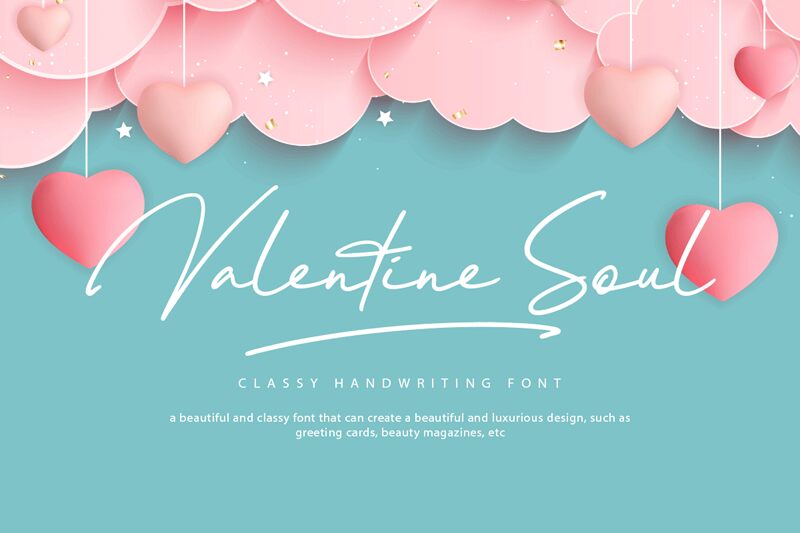
Valentine Soul
Valentine Soul, crafted by Kong Font, exudes the grace of handwritten artistry with its extra-light weight strokes that seem to dance across the page. Its delicate and flowing lines capture a personal touch that resonates with intimacy and affection. The aesthetic appeal of Valentine Soul lies in its ability to convey elegance and warmth, making it an exquisite choice for heartfelt invitations, romantic branding, or any project that desires a touch of human finesse.
The font's fluidity suggests versatility in its use, effortlessly fitting into various design landscapes—from upscale event announcements to boutique product labeling. With Valentine Soul, designers can invoke the subtle charm of handwritten correspondence in their digital creations, blending nostalgic beauty with modern sensibility.